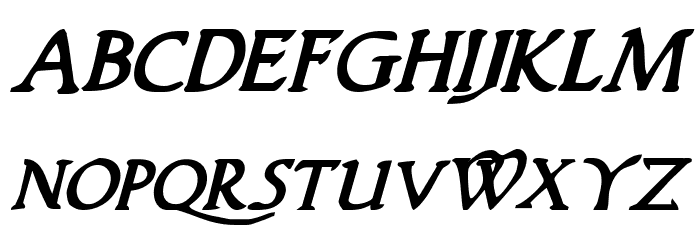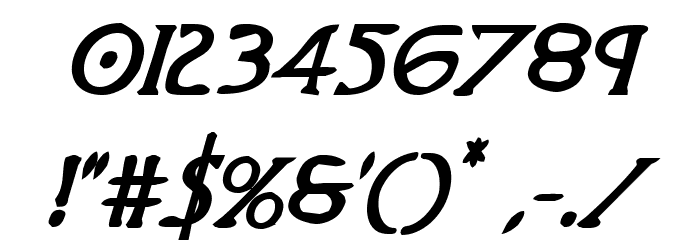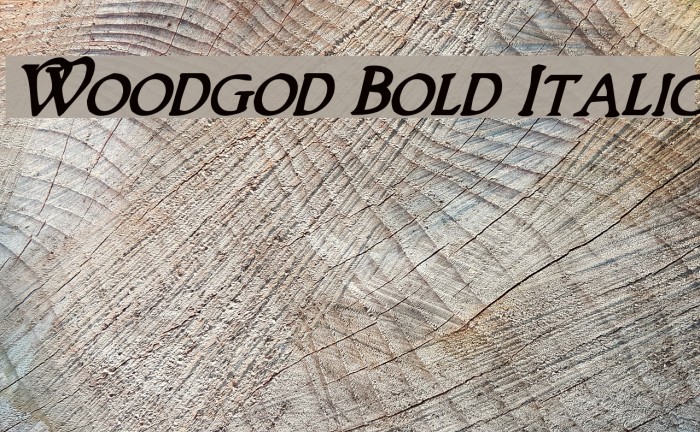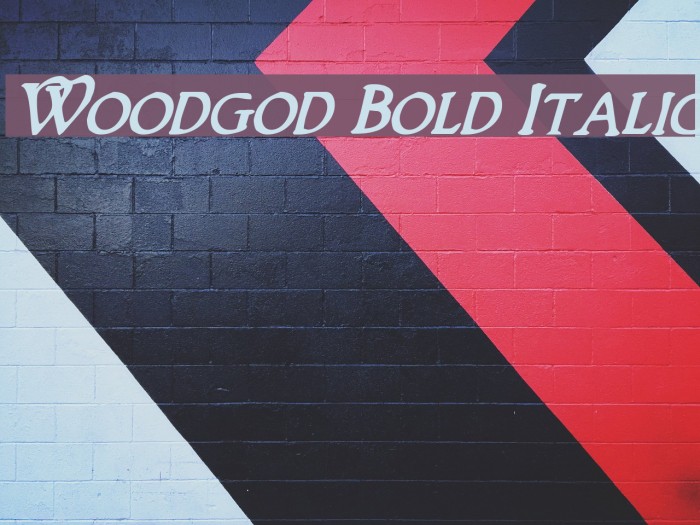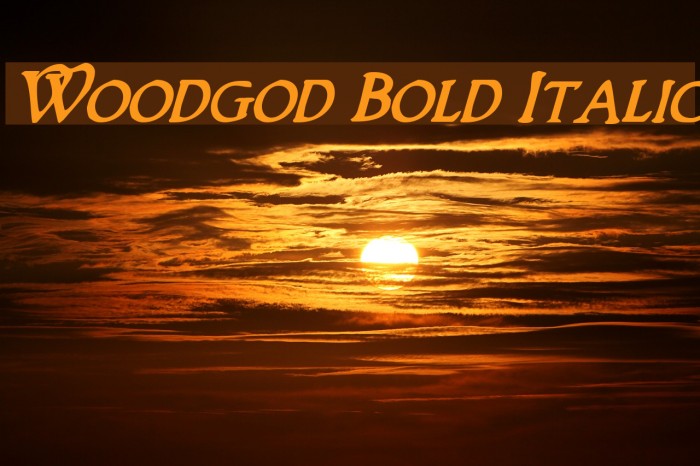
Woodgod Bold Italic Font
This font features a bold and italicized style, characterized by its dynamic and flowing letterforms. The strokes are thick and consistent, providing a strong visual impact. The italic slant adds a sense of movement and elegance, making it suitable for attention-grabbing designs. The uppercase letters are distinct and commanding, while the lowercase letters maintain a cohesive and harmonious appearance. The numerals are clear and bold, ensuring readability. Special characters are well-integrated, complementing the overall aesthetic. The font's design is both modern and decorative, making it versatile for various creative applications.
A bold, italicized font with dynamic and flowing letterforms.
- Proposed Projects: Ideal for branding, headlines, posters, and creative design projects that require a bold and elegant touch.
- Overall Style: Modern, Decorative